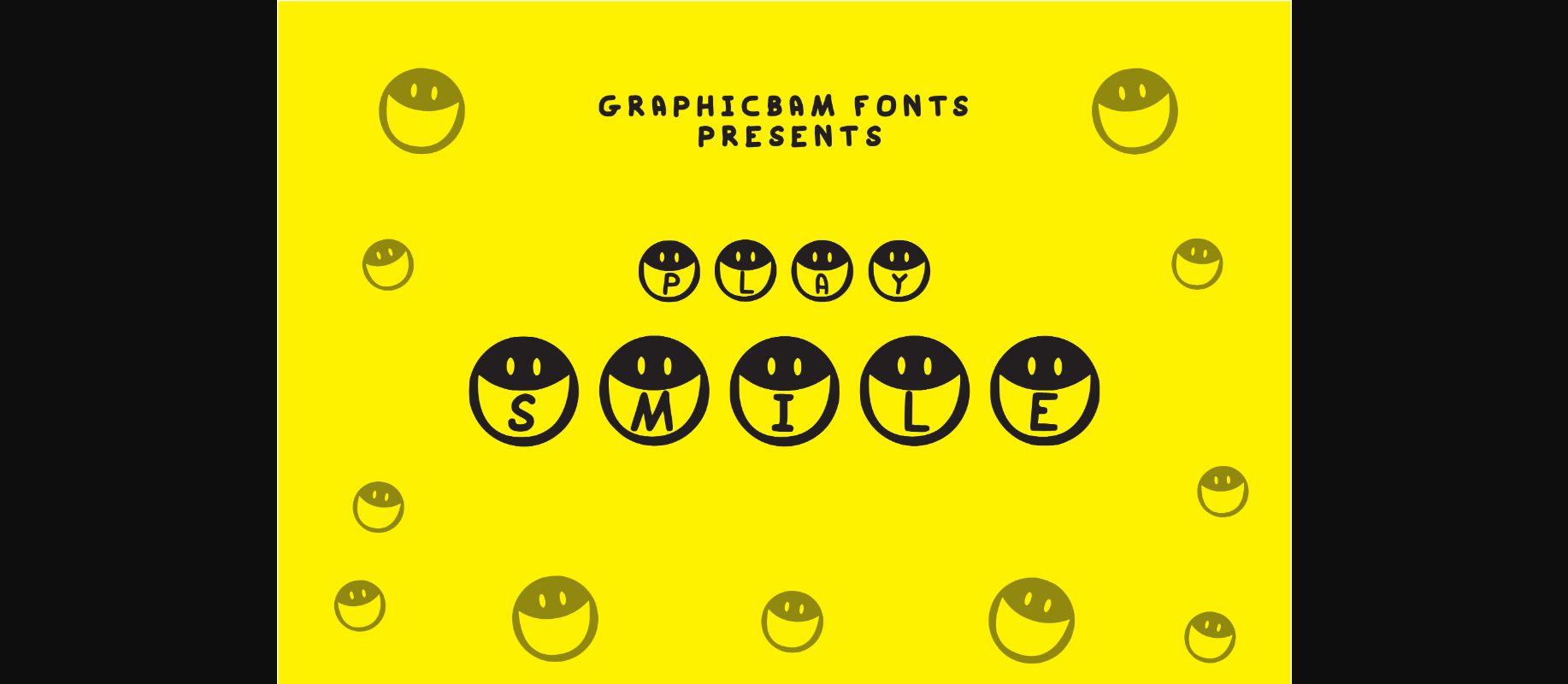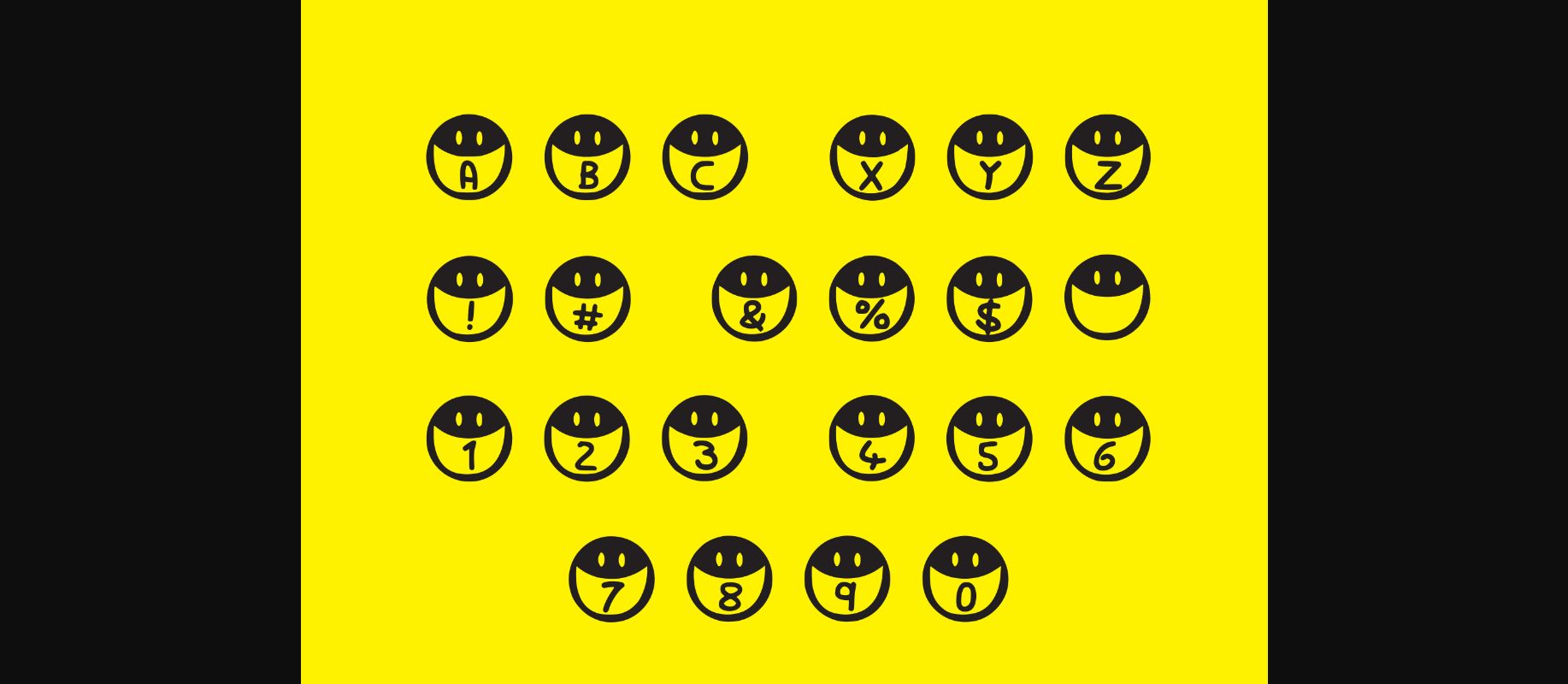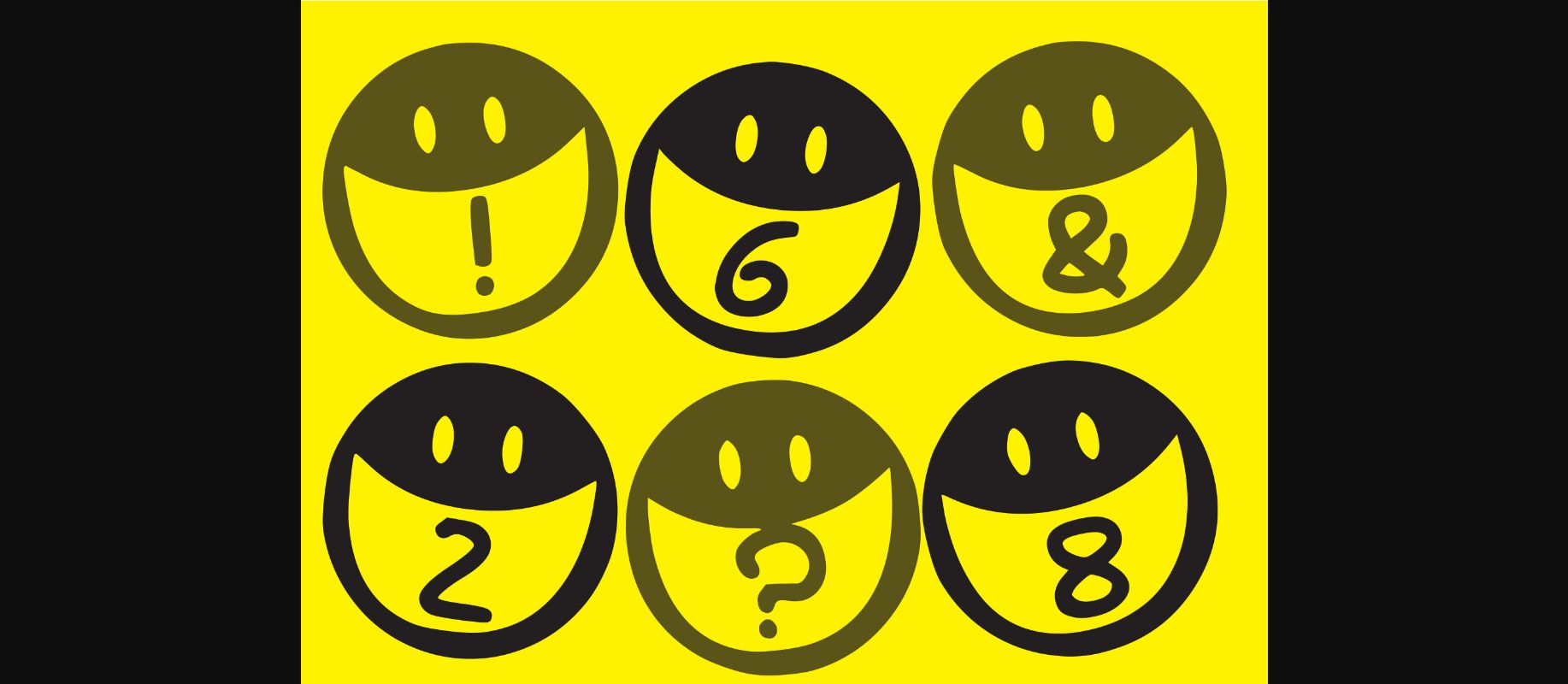
Play Smile is the decorative font you’re looking for when you have a bad day. It looks cheerful and fun, and it can make any product stand out and come alive!